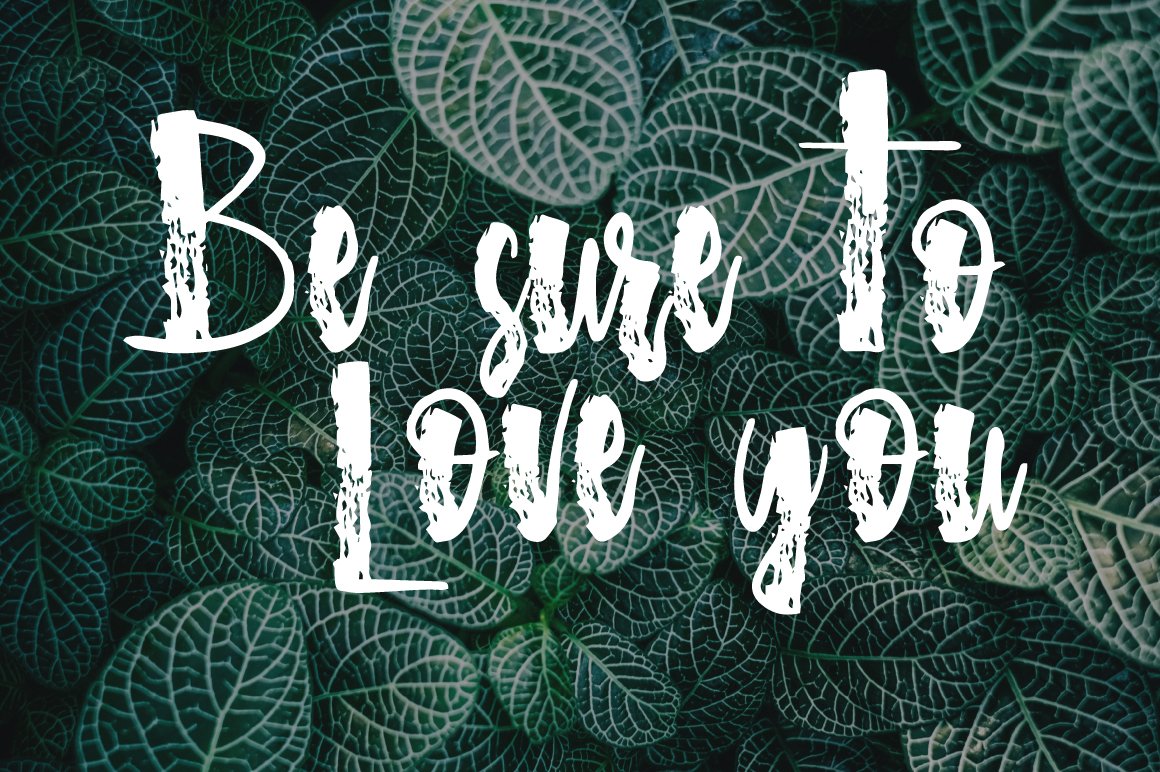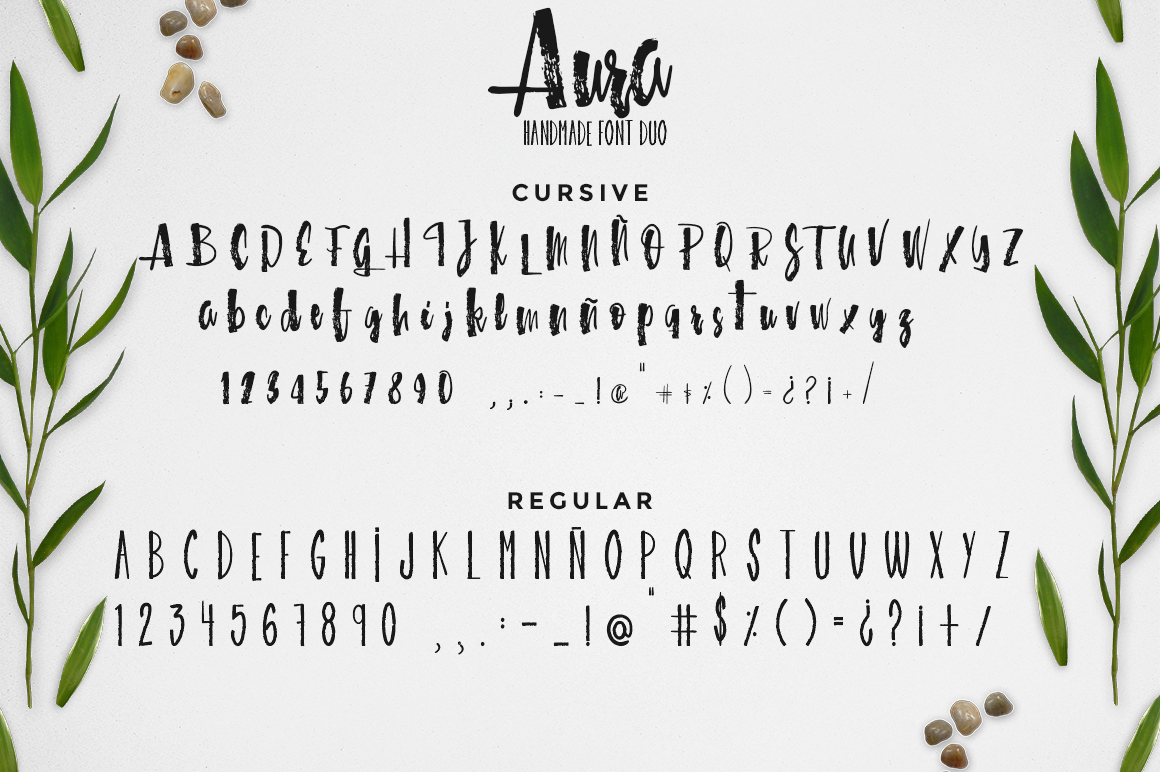
Aura Font
db-ku.com - Script & Handwritten -- Aura is a handmade font duo. The fonts were created by hand with a marker pen and have a very crafty feeling.